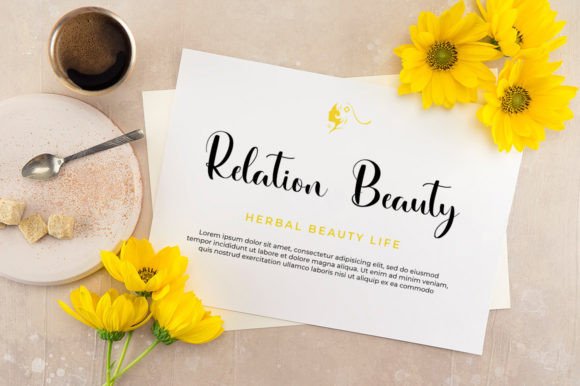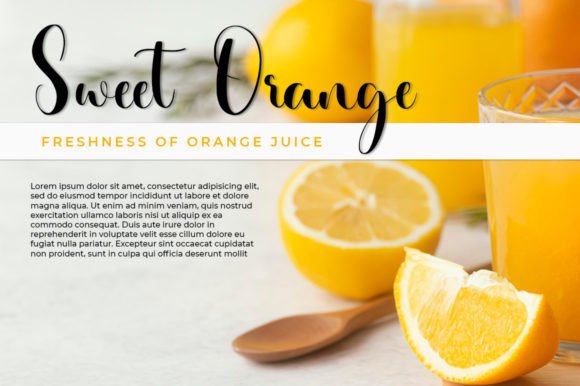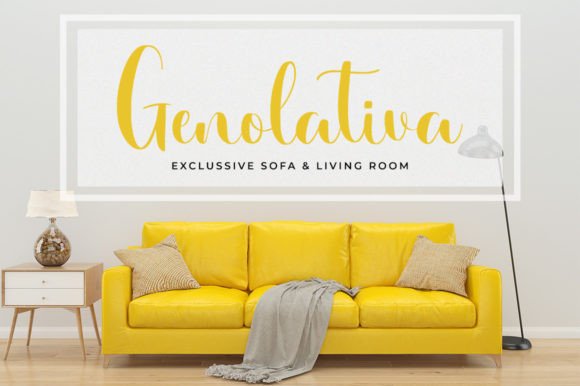
I still remember the countless hours I spent scrolling through font libraries, searching for the perfect script font for a client’s wedding invitation project. The design brief called for something elegant, modern, and handwritten – a font that would make the invitation feel personal and special. After what felt like an eternity, I stumbled upon Dailymona Font, and it was love at first sight! 💕
Introducing Dailymona Font
Dailymona is a stylish and beautiful script font with an elegant and modern look. It’s perfect for many different projects such as logos, branding, invitations, stationery, wedding designs, social media posts, advertisements, product packaging, product designs, labels, photography, watermarks, special events, and anything that needs a handwritten touch.
- ✨ Elegant and modern design that’s perfect for a wide range of projects
- 💫 Beautifully crafted to give a handwritten feel to your designs
While Dailymona Font is an amazing script font, there are a few things to keep in mind:
- ⚠️ Some users may find the font a bit too ornate for very simple designs
- 🤔 It may not be the best choice for very long blocks of text, as it can be a bit challenging to read
A Practical Guide to Using Dailymona Font
The Story Behind Dailymona Font
Dailymona Font was created by a talented type designer who’s passionate about crafting beautiful and unique fonts. The designer’s inspiration for Dailymona Font came from a combination of traditional calligraphy and modern digital design. The result is a font that’s both elegant and modern, with a unique personality that’s sure to make your designs stand out.
Q: Is Dailymona Font suitable for body text?
A: While Dailymona Font is a beautiful script font, it may not be the best choice for long blocks of body text. It’s better suited for headings, titles, and short paragraphs where you want to make a design statement.